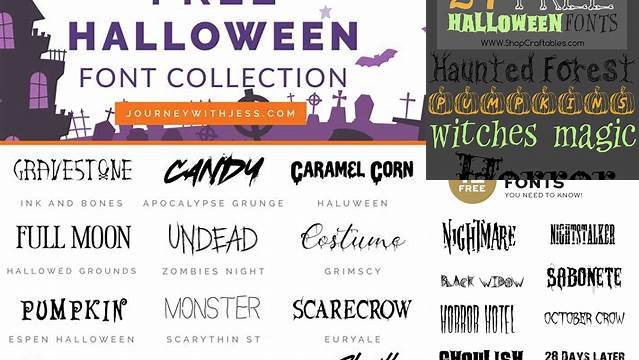
1. Understanding the Importance of Halloween Fonts
Halloween fonts are crucial for setting the right tone and atmosphere for any Halloween-themed project. The perfect font can transform a simple design into something truly captivating and memorable. When you use the right font, you instantly evoke the spirit of Halloween, making your message or design more effective. Think about it: would a cute, bubbly font work for a haunted house invitation? Absolutely not! That's why selecting the right Halloween font is essential. These fonts help create the visual aesthetic that people associate with Halloween—scary, spooky, and fun. A well-chosen font not only complements your design but also enhances the overall theme, ensuring that your audience immediately understands and connects with the Halloween vibe. So, when you're planning your next Halloween project, remember that your font choice is more than just a stylistic decision; it's a vital part of your storytelling.
2. Exploring Free Halloween Font Generators
Free Halloween font generators are fantastic tools for creating unique and personalized typography for your projects. These generators allow you to input text and then transform it into various spooky styles, often with customizable features like color, size, and special effects. The beauty of using a generator is the ability to experiment with different looks without needing advanced design skills. Many online Halloween font generators offer a wide array of options, from dripping blood fonts to eerie, shadowed text. Some generators even let you preview your text in real-time, so you can see exactly how it will look before you commit to downloading it. While these tools are convenient, it's important to note that the quality and variety of fonts can vary widely between different generators. Always check the licensing agreements to ensure you can use the generated fonts for your intended purposes, especially if it's for commercial projects. With a little exploration, you can find a generator that perfectly matches your needs and helps bring your Halloween visions to life.
4. Spooky Font Styles: Gothic and Horror
Gothic and horror font styles are quintessential choices for spooky Halloween fonts. Gothic fonts often feature elaborate, ornate designs with sharp edges and dramatic curves, evoking a sense of old-world mystery and darkness. Think of classic horror novels or ancient vampire tales – these fonts perfectly capture that mood. Horror fonts, on the other hand, tend to be more visceral and impactful, with styles that mimic dripping blood, jagged cuts, or decaying textures. Using gothic fonts can lend an air of sophistication and elegance to your Halloween designs, while horror fonts can create a sense of immediate dread and shock. Combining these two styles can be particularly effective; for example, using a gothic font for headlines and a horror font for accents can add depth and complexity to your design. When selecting these spooky font styles, consider the overall tone of your project. Is it more about subtle creepiness or outright terror? The right gothic or horror font can make all the difference in achieving the desired effect.
5. Creepy Font Styles: Distressed and Eroded
Distressed and eroded font styles are ideal for creating a creepy and unsettling effect in your Halloween designs. These fonts often appear worn, damaged, or decayed, as if they've been weathered by time and the elements. The distressed look can add a sense of age and history, suggesting that your design has a story to tell—perhaps a ghostly one. Eroded fonts, with their rough edges and missing pieces, can evoke feelings of unease and decay, perfectly capturing the essence of a haunted setting. These creepy font styles work exceptionally well for posters, invitations, and website banners, adding a tactile quality that draws the viewer in. When using distressed and eroded fonts, be mindful of legibility. While the worn look is part of their charm, you still want your message to be readable. Experiment with different levels of distress to find the right balance between creepiness and clarity. The more authentic the font looks, the more impact it will have on your audience.
6. Fun Font Styles: Cartoonish and Playful
For a lighter, more family-friendly approach to Halloween, fun font styles like cartoonish and playful fonts are excellent choices. These fonts often feature rounded edges, whimsical shapes, and bright colors, creating a cheerful and inviting atmosphere. Cartoonish fonts can add a sense of humor and lightheartedness to your designs, making them perfect for children's parties, school events, or Halloween-themed games. Playful fonts, with their quirky and unconventional designs, can bring a sense of fun and creativity to your projects. These fun font styles are particularly effective for designs that aim to be inclusive and enjoyable for all ages. When using cartoonish and playful fonts, consider pairing them with equally vibrant graphics and illustrations to enhance the overall effect. Just because it’s Halloween doesn’t mean everything has to be scary! By choosing the right playful font, you can create designs that are both festive and fun.
7. Elegant Font Styles: Script and Calligraphy
If you're aiming for a more sophisticated and refined Halloween design, elegant font styles such as script and calligraphy can be surprisingly effective. These fonts bring a touch of class and formality to the spooky season, adding a unique twist to traditional Halloween themes. Script fonts, with their flowing, cursive-like letters, can evoke a sense of vintage charm or gothic romance, perfect for elegant invitations or upscale event posters. Calligraphy fonts, with their intricate and artistic strokes, can add a touch of drama and sophistication to your designs. Imagine a beautifully scripted invitation to a masquerade ball or a hauntingly elegant poster for a Halloween-themed opera. When using elegant font styles, consider pairing them with darker color palettes and subtle gothic elements to create a balanced and visually striking design. These fonts prove that Halloween can be both spooky and stylish.
9. Using Halloween Fonts in Adobe Photoshop
Using Halloween fonts in Adobe Photoshop opens up a world of creative possibilities for your spooky designs. Once you've installed your downloaded fonts, they should automatically appear in Photoshop's font menu. To use them, simply select the Type tool, click on your canvas to create a text layer, and then choose your desired Halloween font from the font dropdown menu. You can then customize the font's size, color, and other properties to fit your design. Photoshop also allows you to add various effects to your Halloween fonts, such as drop shadows, glows, and textures, to enhance their spooky appearance. Experiment with different blending modes to create unique and eerie effects. For example, using the “Overlay” or “Multiply” blending modes can add depth and dimension to your text. You can also use layer masks to create interesting effects like faded or distressed text. With a little creativity, you can transform a simple font into a haunting masterpiece using Photoshop's powerful tools.
10. Using Halloween Fonts in Adobe Illustrator
Using Halloween fonts in Adobe Illustrator allows you to create scalable and vector-based Halloween designs with ease. Similar to Photoshop, once you've installed your fonts, they will be available in Illustrator's Character panel. To use them, select the Type tool, create a text object, and choose your Halloween font from the font menu. Illustrator's strength lies in its ability to manipulate text as vector graphics, allowing you to resize and reshape your Halloween fonts without losing quality. You can also apply various effects, such as strokes, fills, and gradients, to enhance their appearance. Illustrator’s Pathfinder tool is particularly useful for creating custom shapes and designs with your fonts. For example, you can use it to merge, subtract, or intersect different text elements to create unique and spooky effects. Additionally, Illustrator's Envelope Distort feature allows you to warp and distort your fonts in creative ways, adding a dynamic and eerie touch to your designs. With Illustrator, you can create professional-looking Halloween graphics that are both scalable and visually stunning.
11. Combining Different Halloween Fonts
Combining different Halloween fonts can add depth and visual interest to your designs, but it’s important to do it thoughtfully to avoid a cluttered or confusing look. A good rule of thumb is to stick to two or three fonts per design. Start by choosing a primary font for headlines or titles and a secondary font for body text or supporting elements. The primary font should be the most visually striking and thematic, while the secondary font should be more legible and understated. When selecting different Halloween fonts to combine, consider their contrasting styles. For example, pairing a bold, gothic font with a clean, sans-serif font can create a balanced and visually appealing contrast. Alternatively, you can combine two fonts from the same family but with different weights or styles, such as a regular and italic version of the same font. Always ensure that the fonts you choose complement each other and enhance the overall message of your design. By carefully combining different fonts, you can create a visually engaging and cohesive Halloween design.
12. Creating Custom Halloween Typography
Creating custom Halloween typography allows you to truly personalize your designs and stand out from the crowd. Instead of relying solely on pre-made fonts, you can modify existing fonts or create entirely new ones from scratch. Start by sketching out your ideas on paper, experimenting with different letterforms and styles. Then, use design software like Adobe Illustrator or FontForge to bring your sketches to life. Illustrator allows you to manipulate vector shapes and create custom letterforms with precision, while FontForge is a dedicated font editor that offers advanced features for creating and modifying fonts. When creating custom Halloween typography, consider incorporating thematic elements such as drips, splatters, or jagged edges to enhance the spooky effect. You can also experiment with different textures and patterns to add depth and visual interest to your fonts. Creating custom typography can be a time-consuming process, but the end result is a unique and personalized design that truly captures the spirit of Halloween.
13. Licensing Considerations for Free Halloween Fonts
Understanding the licensing considerations for free Halloween fonts is crucial to ensure you're using them legally and ethically. Not all free fonts are created equal, and their usage rights can vary significantly. Some fonts are free for personal use only, meaning you can use them for non-commercial projects like personal invitations or decorations. Others are released under open-source licenses, allowing you to use them for both personal and commercial purposes, often with certain conditions such as attribution. Before using any free Halloween fonts, always check the font's license agreement. This information is usually provided in a text file included with the font download or on the website where you found the font. Pay close attention to any restrictions on commercial use, modification, or redistribution. If you're unsure about the terms of a particular license, it's best to err on the side of caution and contact the font's creator or distributor for clarification. By understanding and respecting font licenses, you can avoid potential legal issues and support the creators who make these fonts available.
14. Halloween Font Pairing Ideas
Coming up with Halloween font pairing ideas can be a fun way to enhance your designs. When pairing fonts, aim for contrast and balance to create a visually appealing and legible design. Here are a few ideas to get you started:
- Gothic Headline + Simple Sans-Serif Body: Pair a dramatic gothic font like “Nosferatu” with a clean sans-serif font like “Open Sans” for a classic and readable look.
- Creepy Script + Bold Display Font: Combine an eerie script font like “Cryptkeeper” with a bold display font like “Bangers” for a striking contrast.
- Distressed Font + Clean Serif: Use a distressed font like “Burnt Wood” for headings and a clean serif font like “Lora” for body text to add a touch of vintage horror.
- Cartoonish Font + Playful Script: For a family-friendly design, pair a cartoonish font like “Komika Axis” with a playful script font like “Lemonade Stand.”
When Halloween font pairing ideas come to life, make sure the fonts complement each other and enhance the overall theme of your design. Experiment with different combinations to find the perfect match for your project.
15. Optimizing Halloween Fonts for Web Use
Optimizing Halloween fonts for web use is essential for ensuring your website loads quickly and displays your fonts correctly across different devices and browsers. Web fonts are typically delivered in formats like WOFF, WOFF2, TTF, and EOT. WOFF2 is the most modern and efficient format, offering better compression and performance. When choosing Halloween fonts for your website, consider using a font service like Google Fonts or Adobe Fonts, which provide optimized web fonts and ensure proper licensing. Alternatively, you can self-host your fonts, but you'll need to generate the necessary font formats and implement the correct CSS code. To optimize your fonts for web use, consider using font subsetting, which reduces the file size by only including the characters you need. You can also use CSS font-display property to control how the browser handles font loading, ensuring a smooth user experience. By optimizing your Halloween fonts for the web, you can create a spooky and engaging website that loads quickly and looks great on all devices.
16. Creating Halloween Invitations with Unique Fonts
Creating Halloween invitations with unique fonts can set the perfect tone for your spooky event. The right font can transform a simple invitation into a memorable keepsake. Start by choosing a font that reflects the theme of your party. For a classic haunted house party, consider using a gothic or horror font. For a family-friendly costume party, opt for a cartoonish or playful font. When creating Halloween invitations, think about the overall design and how the font will complement the other elements. Use a larger, more decorative font for the headline and a smaller, more legible font for the details. Consider adding thematic elements like bats, spiders, or pumpkins to enhance the spooky vibe. You can also experiment with different colors and textures to create a unique and eye-catching invitation. Whether you're designing your invitations digitally or printing them out, using unique fonts can make a big impact and get your guests excited for your Halloween celebration.
17. Designing Halloween Posters with Eye-Catching Typography
Designing Halloween posters with eye-catching typography is a great way to grab attention and promote your event or message. Typography is a key element in poster design, and choosing the right font can make all the difference. Start by selecting a font that matches the theme and tone of your poster. For a scary movie night, consider using a horror or distressed font. For a Halloween carnival, opt for a bold and playful font. When designing Halloween posters, think about the overall composition and how the typography will interact with the other elements. Use a large, bold font for the headline to grab attention and a smaller, more legible font for the details. Experiment with different colors, sizes, and spacing to create a visually appealing and impactful design. Consider adding thematic elements like ghosts, skeletons, or haunted houses to enhance the Halloween vibe. By using eye-catching typography, you can create a poster that stands out and effectively communicates your message.
18. Generating Halloween-Themed Logos with Free Fonts
Generating Halloween-themed logos with free fonts is a cost-effective way to create a memorable brand identity for your event or business. A well-designed logo can capture the essence of Halloween and make a lasting impression on your audience. Start by brainstorming ideas and sketching out different logo concepts. Consider incorporating thematic elements like pumpkins, bats, or ghosts into your design. When choosing free fonts for your logo, select fonts that are legible, scalable, and representative of your brand. For a spooky brand, consider using a gothic or horror font. For a fun and playful brand, opt for a cartoonish or script font. Experiment with different font combinations and layouts to create a unique and eye-catching logo. You can use online logo generators or design software like Adobe Illustrator to bring your logo to life. Remember to check the font's license agreement to ensure you can use it for commercial purposes. By using free fonts creatively, you can create a professional-looking Halloween logo that effectively represents your brand.
19. Creating Social Media Graphics with Spooky Fonts
Creating social media graphics with spooky fonts is a fantastic way to engage your audience during the Halloween season. Eye-catching graphics can help your posts stand out in the crowded social media landscape. Start by selecting a font that aligns with your brand and the theme of your post. For a spooky and mysterious vibe, consider using a gothic or distressed font. For a fun and playful feel, opt for a cartoonish or script font. When creating social media graphics, think about the overall design and how the font will complement the images and other elements. Use a bold font for headlines or key messages and a more legible font for supporting text. Experiment with different colors, sizes, and spacing to create a visually appealing graphic. Consider adding thematic elements like pumpkins, bats, or spiders to enhance the Halloween spirit. Use design tools like Canva or Adobe Spark to easily create professional-looking social media graphics with spooky fonts.
20. Halloween Movie Night Font Ideas
Choosing the right font for your Halloween movie night promotions can set the perfect spooky tone. Think about the vibe you want to create. Are you going for classic horror, family-friendly fun, or something in between? For a classic horror movie night, consider using fonts that evoke vintage horror posters. Fonts with dripping effects or sharp, jagged edges can create a sense of unease and dread. For a family-friendly movie night, opt for playful fonts that are still thematic but not too scary. Cartoonish fonts or slightly spooky scripts can work well. If you’re showcasing a specific movie, try to find a font that matches the movie's original poster or title design. This adds a layer of authenticity and nostalgia. When showcasing Halloween movie night font ideas, ensure your font choice is legible, even in low light conditions. Pairing a bold, attention-grabbing headline font with a simpler, easy-to-read font for the details can help balance aesthetics and readability. Don’t be afraid to get creative with colors and effects to enhance the spooky atmosphere.
21. Designing Halloween T-Shirts with Unique Typography
Designing Halloween T-shirts with unique typography is a great way to express your spooky spirit. Typography can make your T-shirt stand out, whether you're going for scary, funny, or creative. Start by choosing a font that reflects the theme of your design. For a classic horror T-shirt, consider using gothic or distressed fonts. For a funny or quirky design, opt for cartoonish or playful fonts. When designing Halloween T-shirts, think about the overall layout and how the typography will interact with any images or graphics. Use a bold font for the main message and a smaller, more legible font for any supporting text. Experiment with different colors, sizes, and arrangements to create a visually appealing design. Consider adding thematic elements like ghosts, bats, or pumpkins to enhance the Halloween vibe. Use design software like Adobe Photoshop or Illustrator to create your T-shirt design, or use online T-shirt design tools. Remember to check the font's license agreement to ensure you can use it for commercial purposes if you plan to sell your T-shirts. By using unique typography, you can create a Halloween T-shirt that is both stylish and spooky.
22. Using Halloween Fonts for DIY Decorations
Using Halloween fonts for DIY decorations can add a personalized and spooky touch to your home. Whether you're creating banners, signs, or other decorations, the right font can enhance the overall effect. Start by choosing fonts that match the theme of your decorations. For a haunted house theme, consider using gothic or distressed fonts. For a family-friendly theme, opt for cartoonish or playful fonts. When using Halloween fonts, think about the size and visibility of your decorations. Use larger fonts for banners and signs that need to be seen from a distance and smaller fonts for more detailed decorations. Experiment with different colors and materials to create unique and eye-catching decorations. You can use stencils to paint fonts onto wood or fabric, or print fonts onto paper and cut them out. Consider adding thematic elements like spiders, bats, or pumpkins to enhance the Halloween vibe. By using Halloween fonts creatively, you can create DIY decorations that are both spooky and stylish.
23. Halloween Party Themes and Matching Font Styles
Matching Halloween party themes and matching font styles is key to creating a cohesive and immersive experience for your guests. The font you choose can enhance the overall atmosphere and set the tone for your event. Here are a few theme ideas and suggested font styles:
- Haunted Mansion: Use gothic or script fonts for a classic, eerie vibe.
- Mad Scientist Lab: Opt for futuristic or distorted fonts to create a sense of chaotic experimentation.
- Monster Mash: Choose playful, cartoonish fonts for a fun and lighthearted atmosphere.
- Vampire Ball: Select elegant, calligraphic fonts for a sophisticated and mysterious feel.
- Zombie Apocalypse: Use distressed or eroded fonts to evoke a sense of decay and survival.
When planning Halloween party themes, ensure your font choices are legible and complement the other decorations and elements of your party. The right font can tie everything together and make your event unforgettable.
24. Creating Eerie Book Covers with Halloween Typography
Creating eerie book covers with Halloween typography can captivate readers and set the perfect tone for a spooky story. The font you choose can convey the genre and mood of your book at a glance. Start by selecting a font that aligns with the theme and target audience of your book. For a horror novel, consider using gothic or distressed fonts. For a thriller or suspense novel, opt for sharp and modern fonts. When creating eerie book covers, think about the overall design and how the typography will interact with the other elements. Use a large, bold font for the title to grab attention and a smaller, more legible font for the author's name and subtitle. Experiment with different colors, sizes, and spacing to create a visually appealing and impactful cover. Consider adding thematic elements like ghosts, shadows, or blood splatters to enhance the Halloween vibe. Use design software like Adobe Photoshop or InDesign to create your book cover, or hire a professional designer. By using Halloween typography effectively, you can create a book cover that is both eye-catching and representative of your story.
25. Halloween-Themed Email Marketing with Engaging Fonts
Halloween-themed email marketing with engaging fonts can significantly boost your open and click-through rates. The right font can grab your subscribers' attention and create a festive atmosphere. Start by choosing a font that matches your brand and the theme of your email campaign. For a spooky and mysterious vibe, consider using gothic or distressed fonts. For a fun and playful feel, opt for cartoonish or script fonts. When creating email marketing campaigns, think about the overall design and how the font will complement the images and other elements. Use a bold font for headlines or key messages and a more legible font for body text. Ensure your font choices are web-safe and display correctly across different email clients. Experiment with different colors and sizes to create a visually appealing email. Consider adding thematic elements like pumpkins, bats, or spiders to enhance the Halloween spirit. Use email marketing platforms like Mailchimp or ConvertKit to create and send your emails. By using engaging fonts, you can create Halloween-themed emails that stand out and drive conversions.
26. Mobile-Friendly Halloween Font Choices
Choosing mobile-friendly Halloween font choices is crucial for ensuring your content looks great on all devices. With a significant portion of web traffic coming from mobile devices, it's essential to select fonts that are legible and display correctly on smaller screens. Start by opting for web-safe fonts that are widely supported across different operating systems and browsers. Some popular mobile-friendly fonts include Arial, Helvetica, and Open Sans. When mobile-friendly Halloween font choices come to mind, consider using larger font sizes and line heights to improve readability. Avoid using overly decorative or complex fonts that may be difficult to read on small screens. Test your font choices on different mobile devices to ensure they look good and are easy to read. Use responsive design techniques to adjust the font size and layout based on the screen size. Consider using font loading strategies to optimize the performance of your website or app on mobile devices. By choosing mobile-friendly Halloween fonts, you can create a seamless and enjoyable user experience for all your visitors.
27. Halloween Font Trends for 2024
Staying updated with Halloween font trends for 2024 can help your designs look fresh and relevant. As design preferences evolve, new font styles and combinations emerge each year. Some of the expected trends for Halloween 2024 include:
- Retro Horror: Fonts that evoke the classic horror movie posters of the 1980s.
- Hand-Drawn Spooky: Fonts with a natural, imperfect feel, adding a personal touch.
- Minimalist Gothic: Clean, modern takes on traditional gothic fonts.
- Bold and Playful: Cartoonish fonts with a contemporary twist, perfect for family-friendly designs.
- Interactive Fonts: Animated or dynamic fonts that add a unique and engaging element.
When exploring Halloween font trends, consider how they align with your brand and target audience. Experiment with new styles while staying true to your overall aesthetic. By incorporating current font trends, you can create designs that are both spooky and stylish.
28. Optimizing Font Loading for Halloween Websites
Optimizing font loading for Halloween websites is essential for ensuring a fast and smooth user experience. Slow-loading fonts can negatively impact your website's performance and user engagement. Start by using web-optimized font formats like WOFF2, which offers better compression and performance compared to older formats like TTF or EOT. When optimizing font loading, consider using font services like Google Fonts or Adobe Fonts, which provide optimized fonts and ensure proper caching. Alternatively, you can self-host your fonts, but you'll need to implement the correct caching and compression techniques. Use CSS font-display property to control how the browser handles font loading. Experiment with different values like 'swap' or 'optional' to find the best balance between performance and visual appearance. Consider using font subsetting to reduce the file size by only including the characters you need. By optimizing font loading, you can create a Halloween website that is both visually appealing and fast-loading.
29. The Psychology of Halloween Fonts
Understanding the psychology of Halloween fonts can help you make more informed design choices. Different font styles evoke different emotions and associations, which can impact how your audience perceives your message. Gothic fonts, for example, often evoke feelings of mystery, darkness, and tradition. Distressed fonts can create a sense of unease, decay, and age. Cartoonish fonts tend to be associated with fun, playfulness, and lightheartedness. When the psychology of Halloween fonts comes to mind, consider your target audience and the overall tone you want to convey. Use fonts that align with your message and evoke the desired emotions. Experiment with different font combinations and layouts to create a visually appealing and impactful design. By understanding the psychology of fonts, you can create Halloween designs that are both effective and engaging.
30. Future Trends in Halloween Typography
Looking ahead, several future trends in Halloween typography are poised to shape the design landscape. As technology evolves and design preferences change, new and innovative font styles are emerging. Some potential future trends include:
- Variable Fonts: Offering greater flexibility and customization options.
- 3D Fonts: Adding depth and dimension to Halloween designs.
- Animated Fonts: Bringing typography to life with motion and interactivity.
- AI-Generated Fonts: Creating unique and personalized fonts using artificial intelligence.
- Augmented Reality Fonts: Integrating typography into real-world environments.
When exploring future trends in Halloween typography, consider how they can enhance your designs and engage your audience. Experiment with new technologies and styles to stay ahead of the curve. By embracing innovation, you can create Halloween designs that are both cutting-edge and captivating.